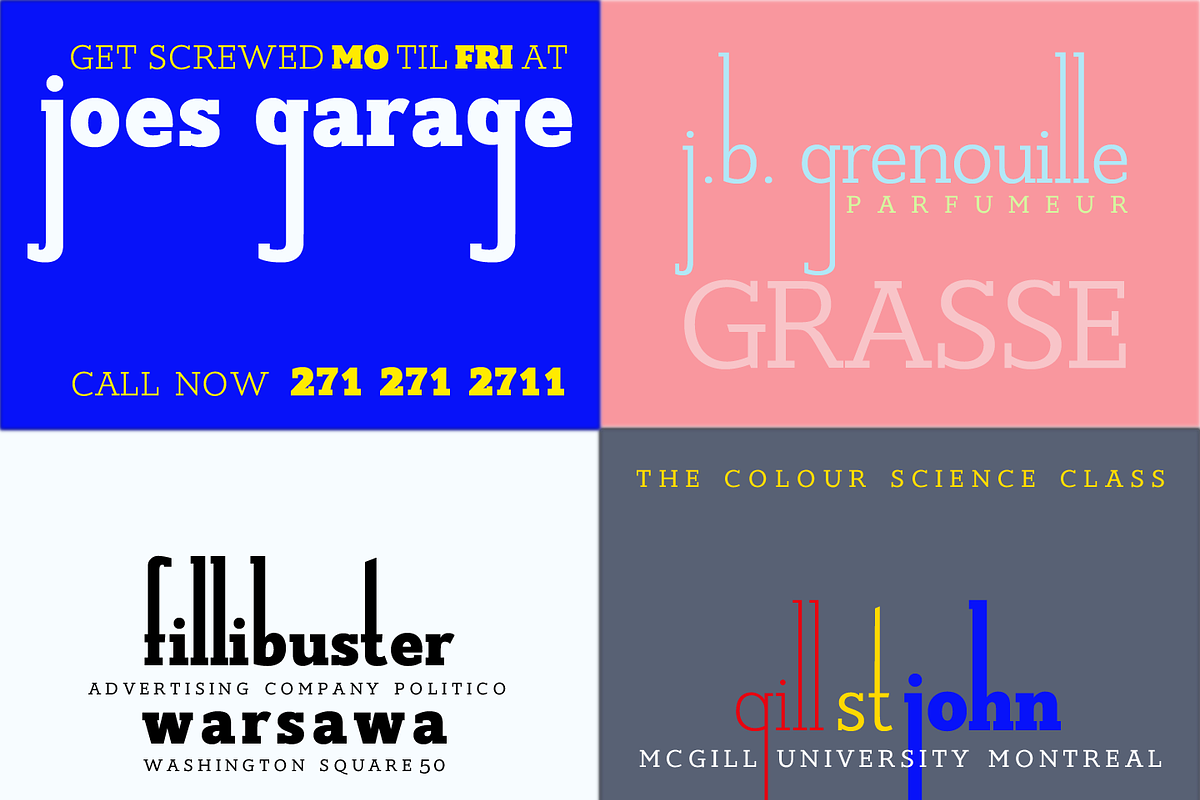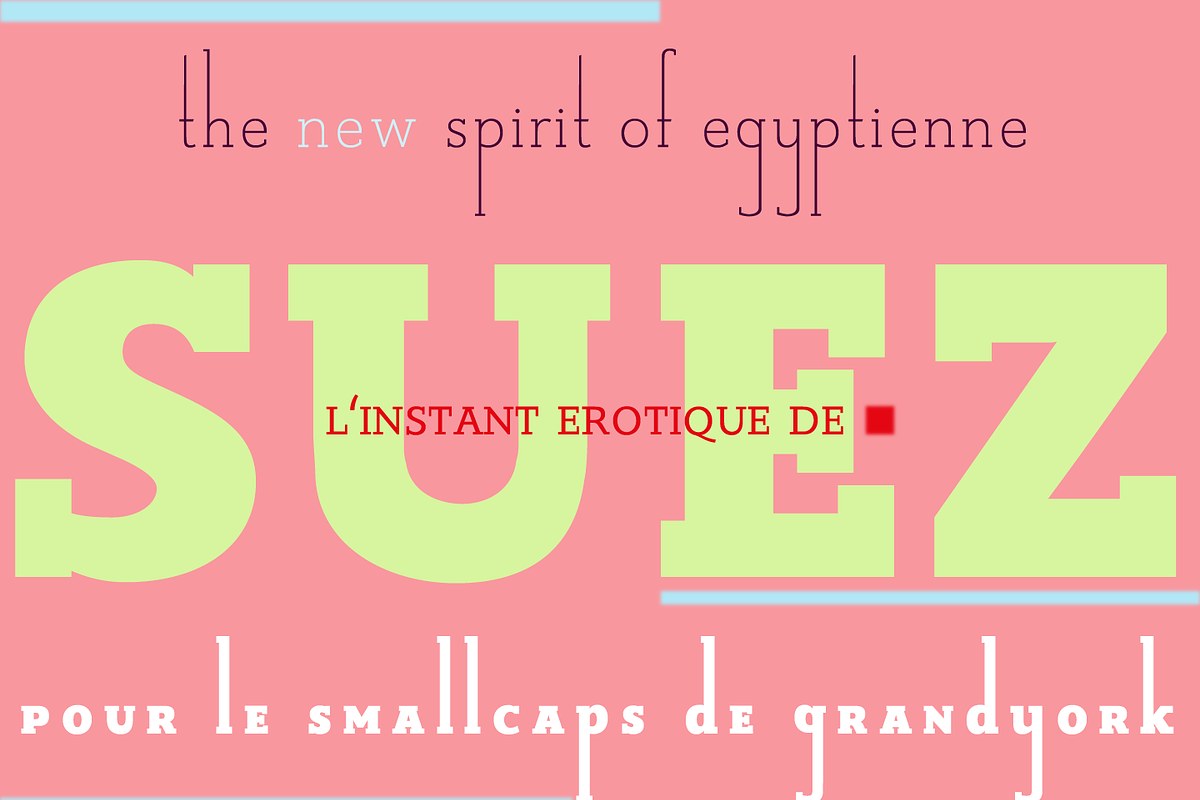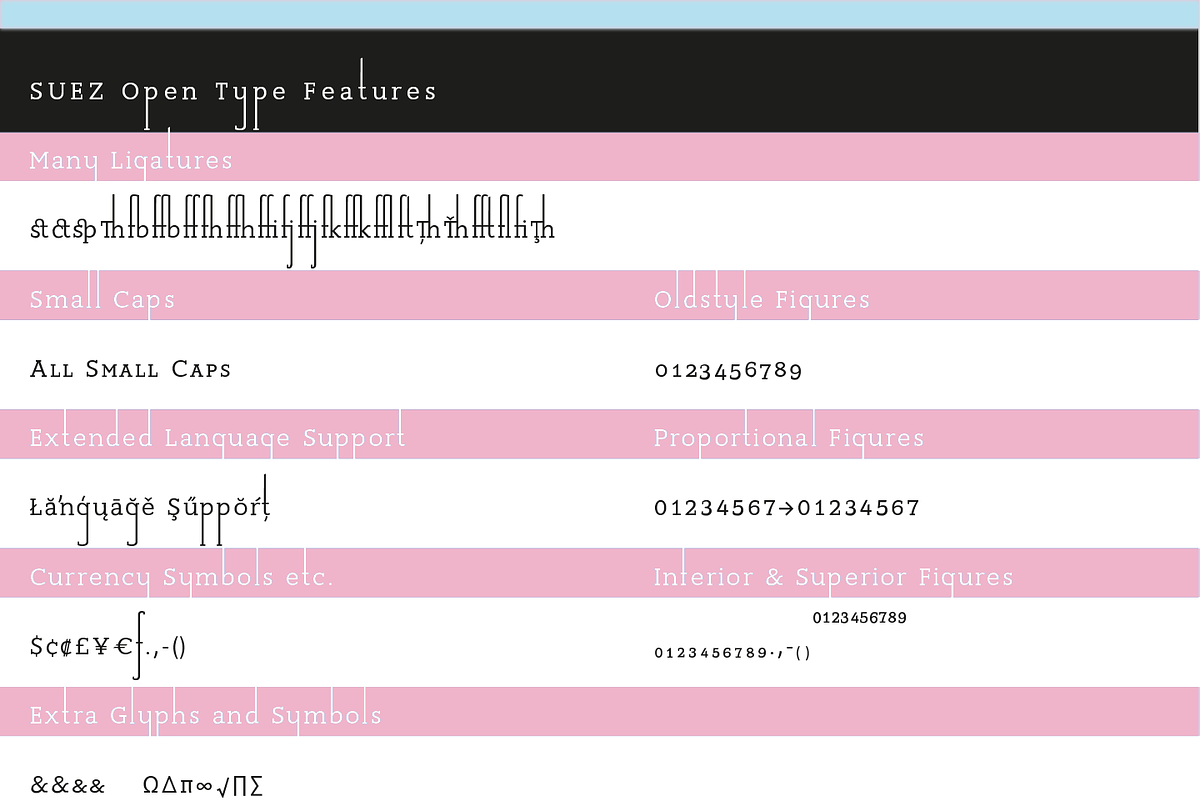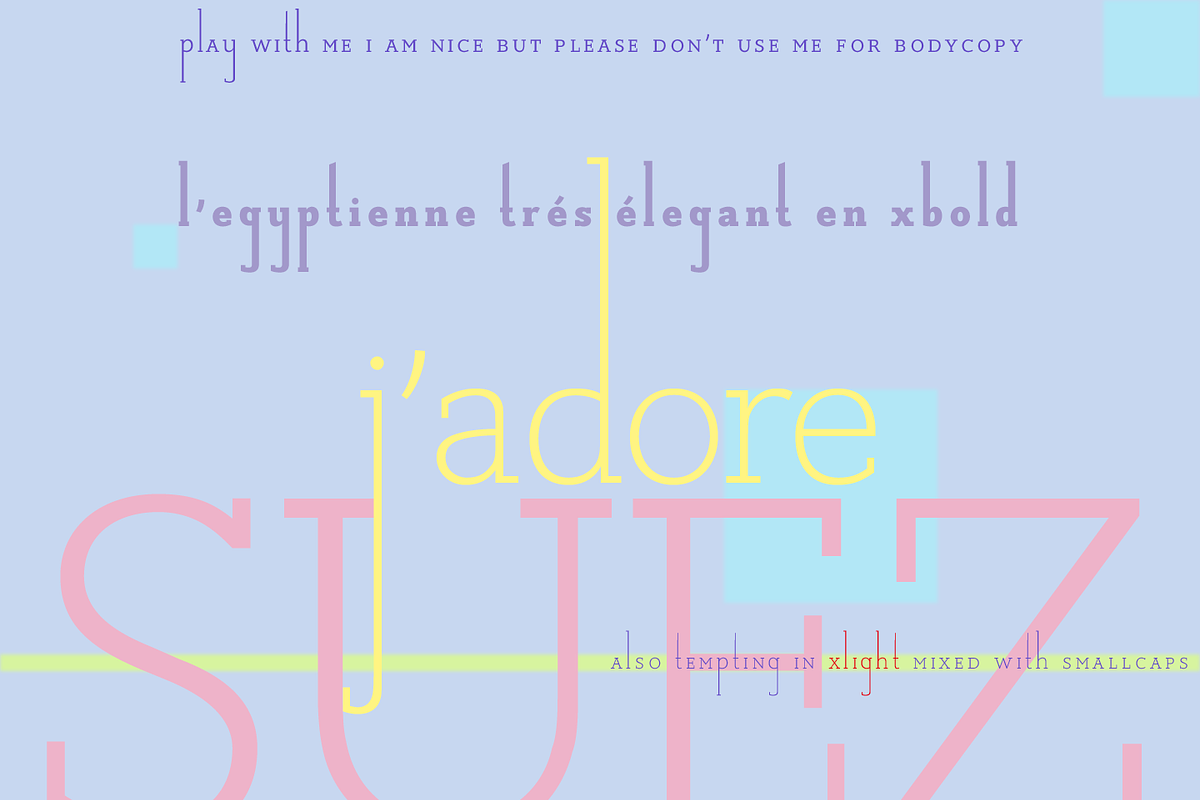
Suez font
Suez font by Wiescher Design is a font selected for branding, posters, packaging, typography.
- Suez ExtraLight
- Suez Normal
- Suez ExtraBold
Why Suez font is worth a look
Suez font by Wiescher Design fits naturally into Branding, posters, packaging, typography.